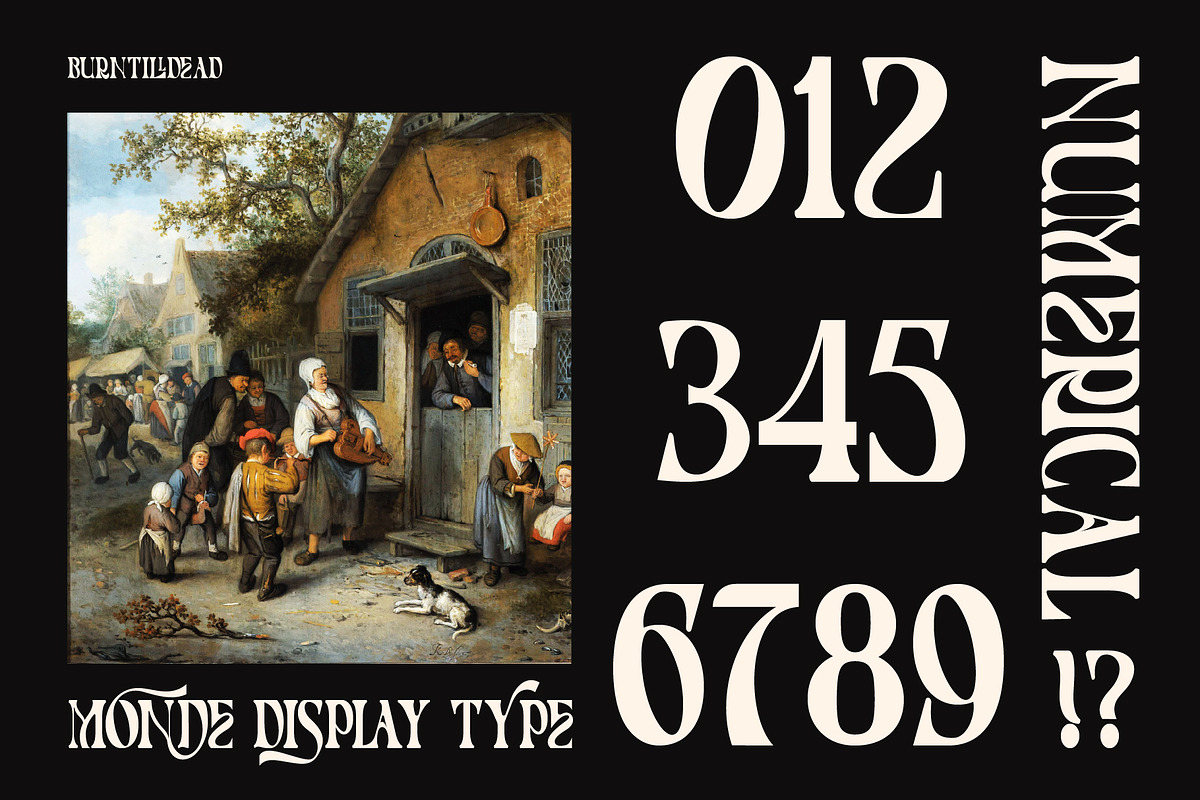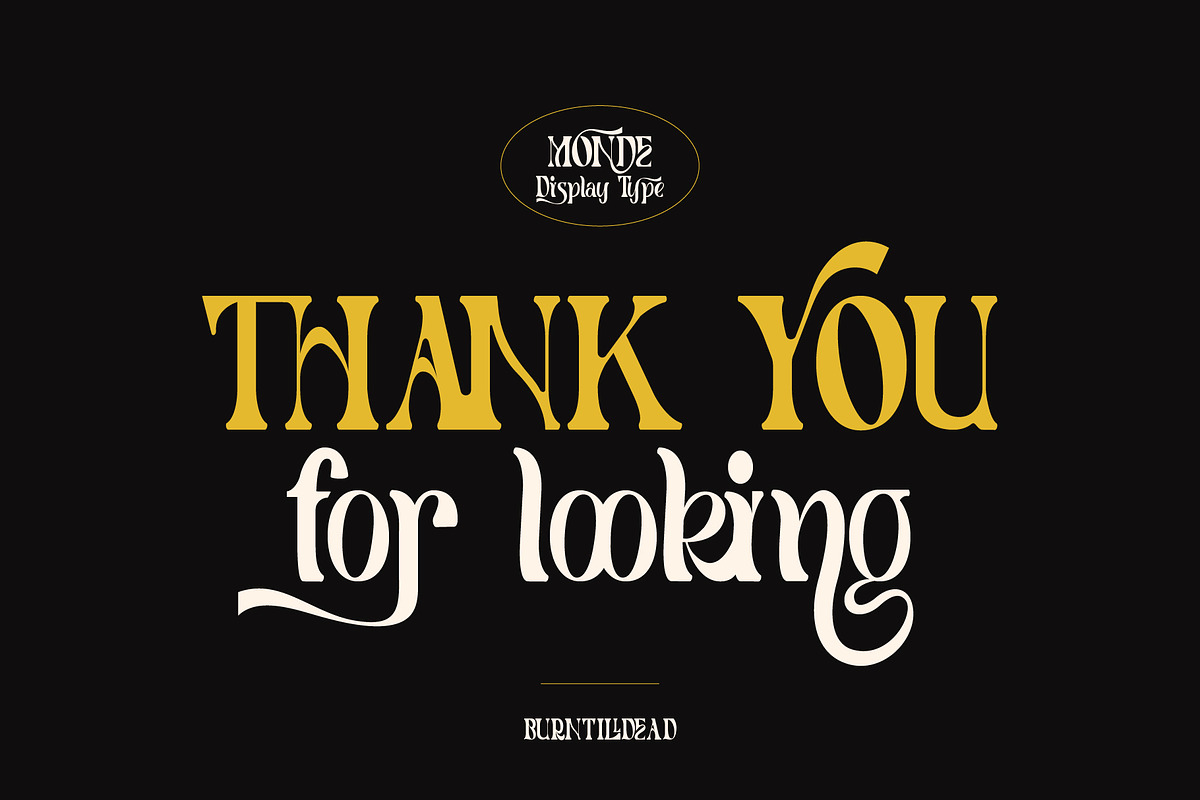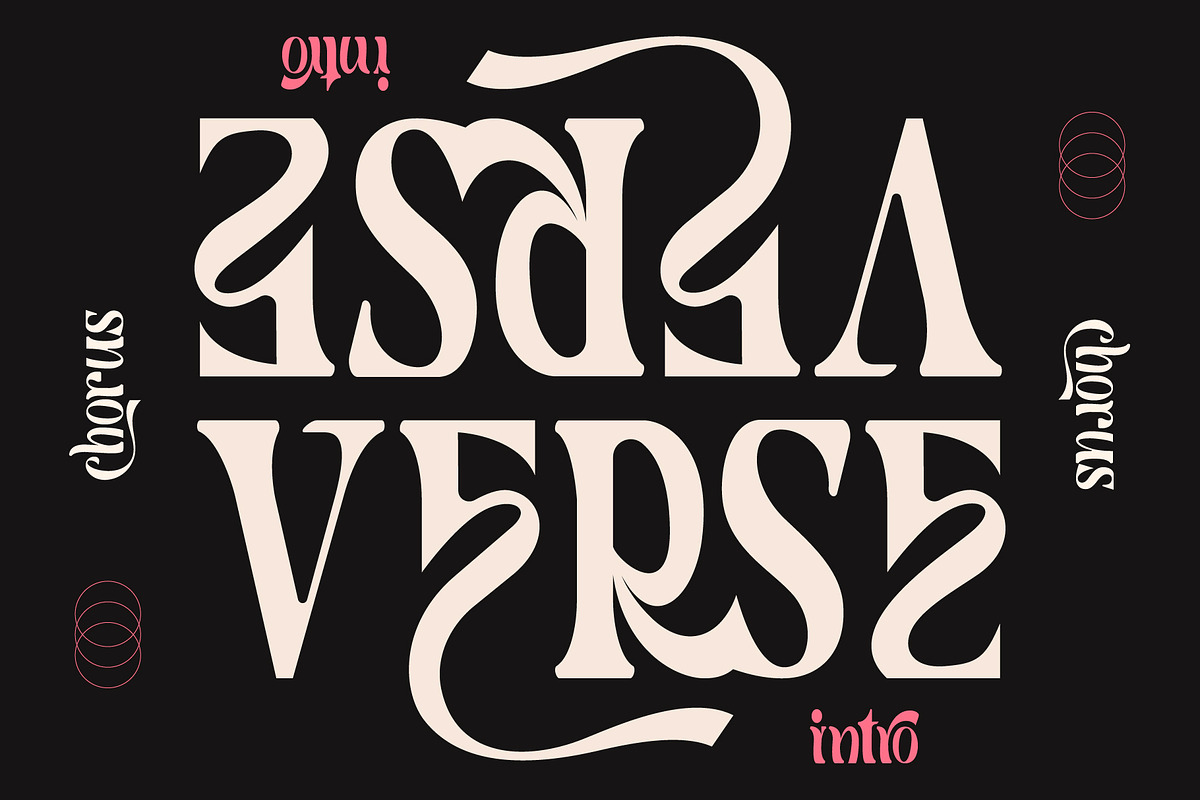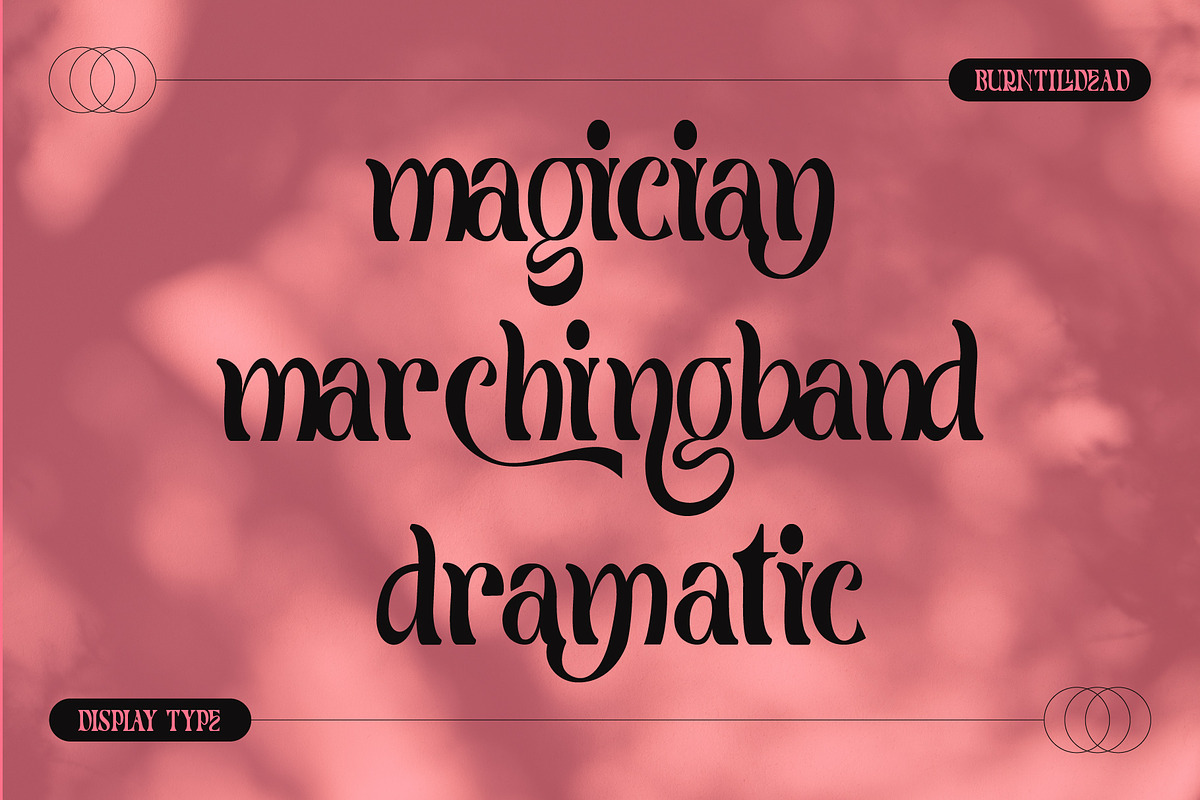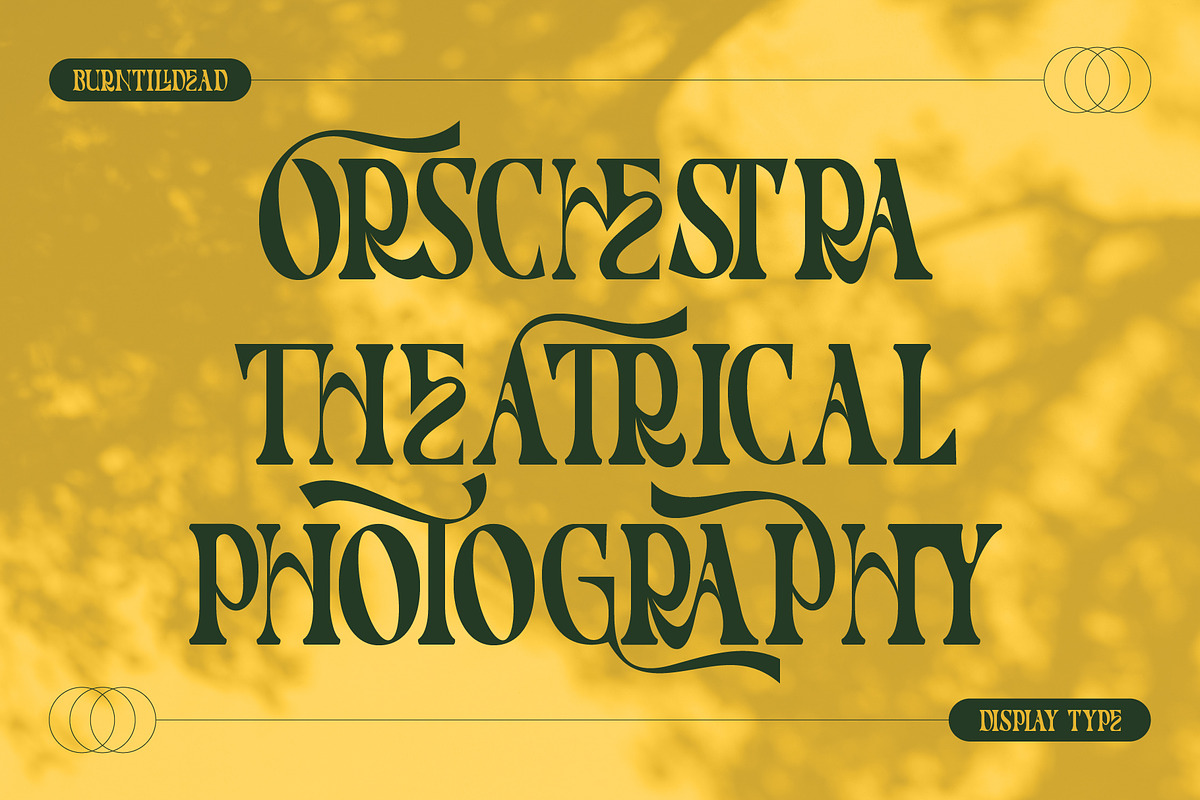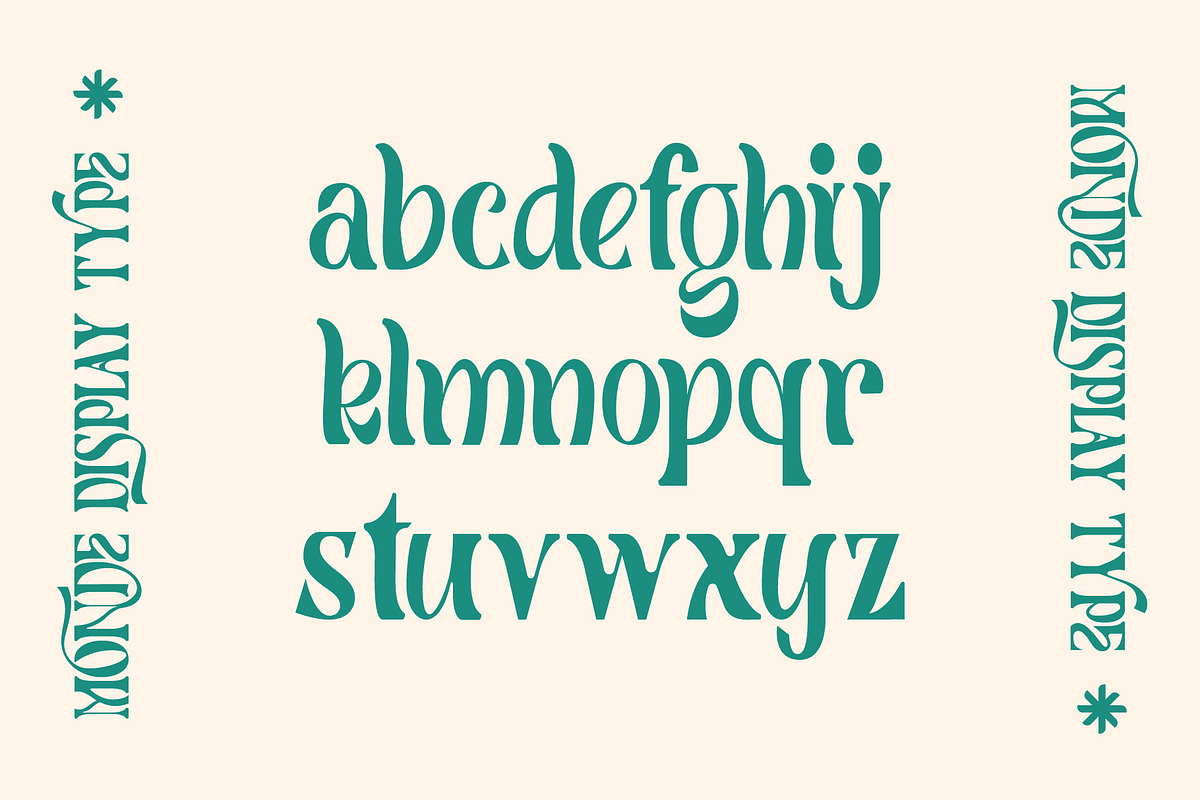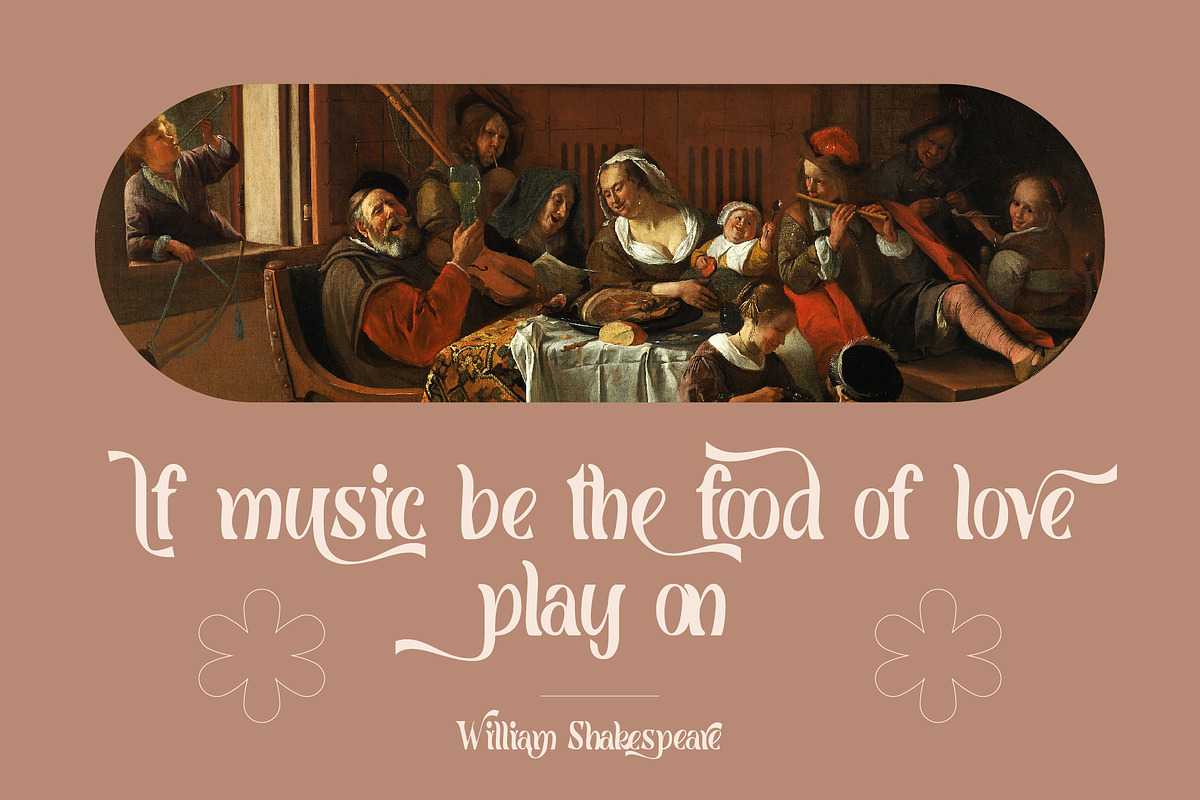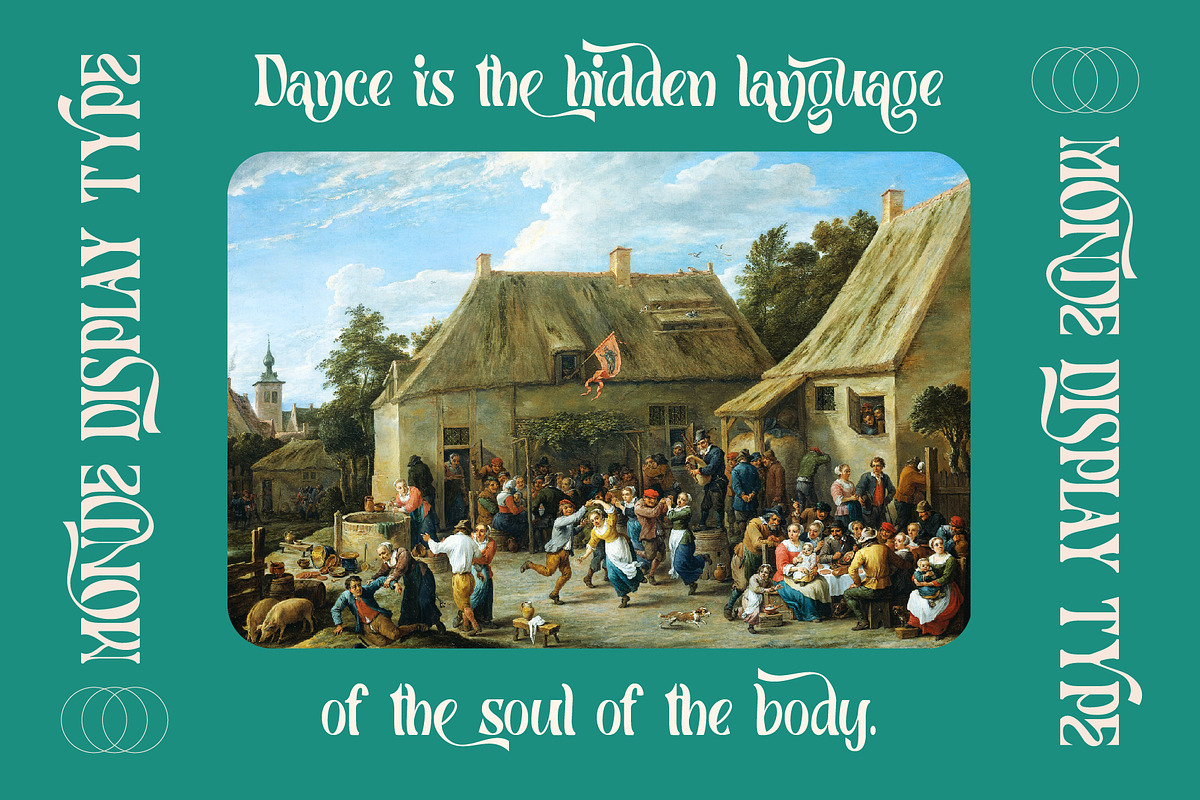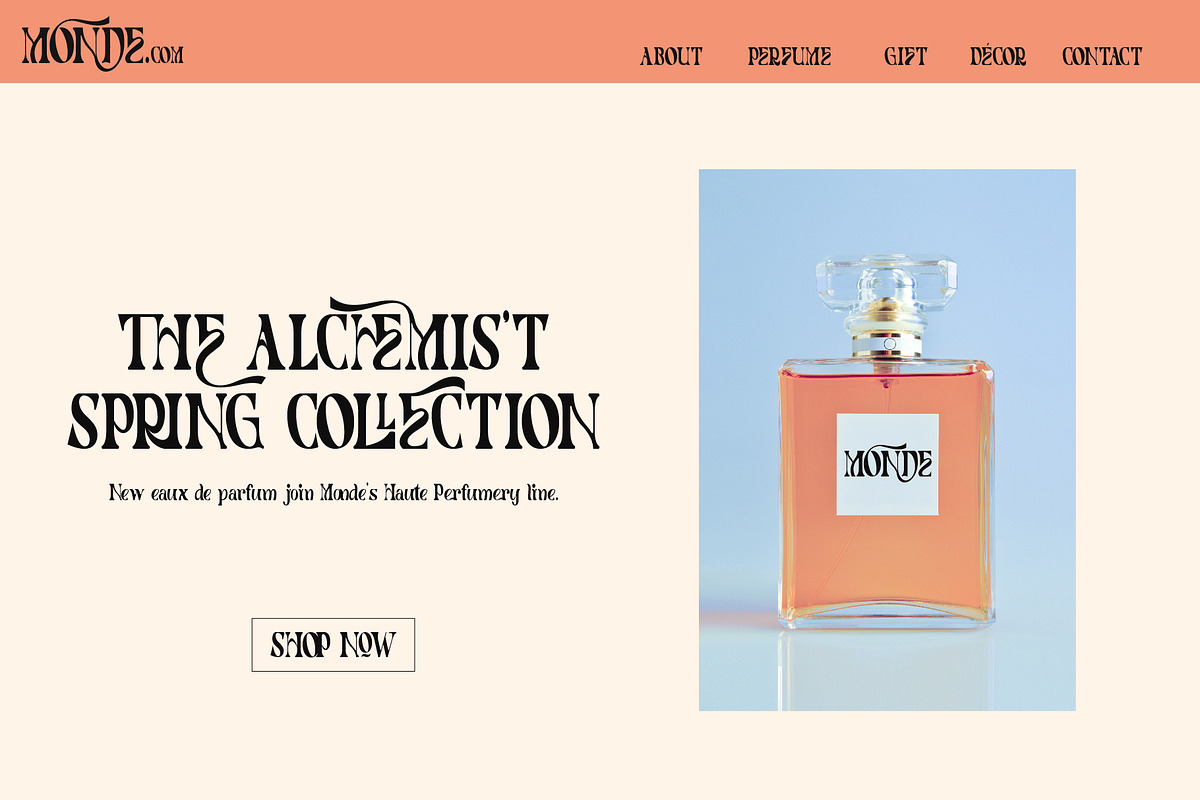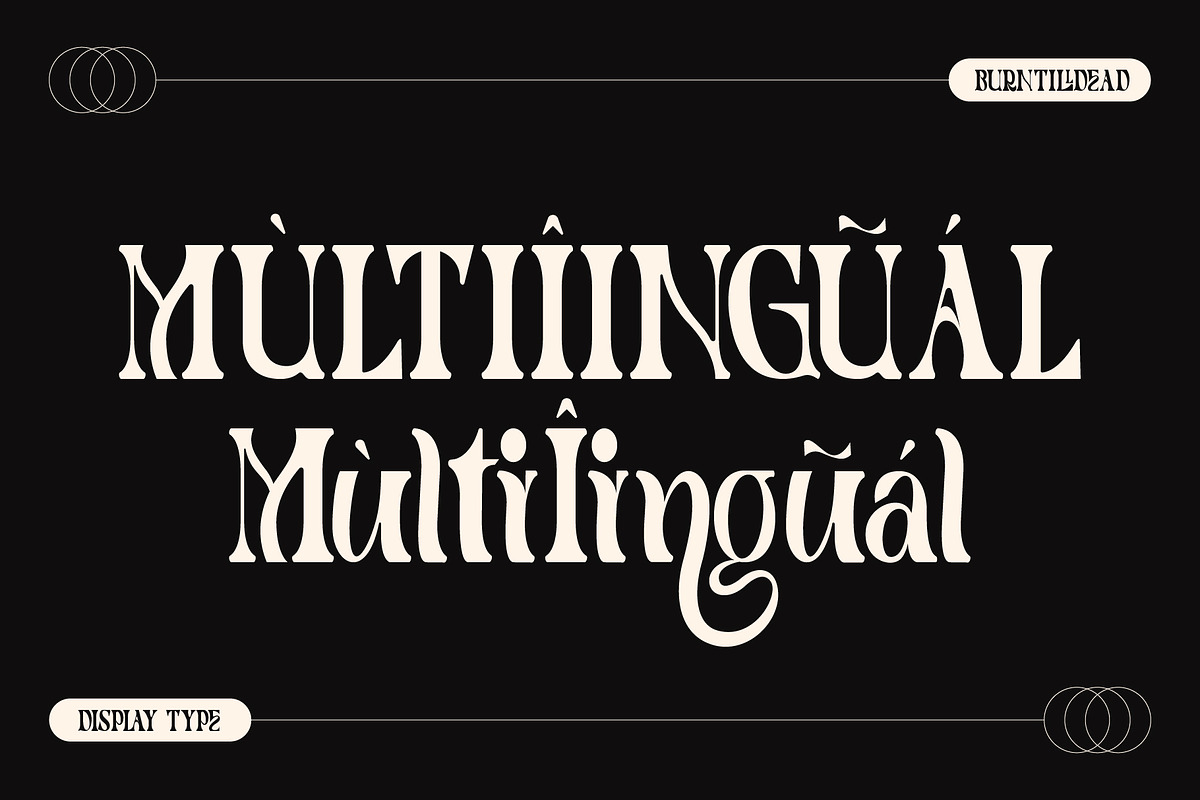
Monde - 100 Ligatures
Introducing “Monde” display typeface. Powered with +100 ligatures to bring fluent combination & +70 alternate characters to get dynamic & more aesthetic looks.
Perfect and suitable for branding, headline, logotype, sticker, editorial design, and etc.
Multi languages included: Afrikaans, Albanian, Asu, Basque, Bemba, Bena, Cebuano, Chiga, Cornish, Corsican, Danish, Embu, English, Estonian, Filipino, Finnish, French, Friulian, Galician, German, Gusii, Ido, Indonesian, Interlingua, Irish, Italian, Javanese, Jju, Kabuverdianu, Kalaallisut, Kalenjin, Kamba, Kikuyu, Kinyarwanda, Kurdish, Lojban, Low German, Luo, Luxembourgish, Luyia, Machame, Makhuwa-Meetto, Makonde, Malagasy, Malay, Manx, Meru, Morisyen, North Ndebele, Northern Sotho, Norwegian Bokmål, Norwegian Nynorsk, Nyanja, Nyankole, Occitan, Oromo, Portuguese, Romansh, Rombo, Rundi, Rwa, Samburu, Sango, Sangu, Sardinian, Scottish Gaelic, Sena, Shambala, Shona, Slovenian, Soga, Somali, South Ndebele, Southern Sotho, Spanish, Swahili, Swati, Swedish, Swiss German, Taita, Taroko, Teso, Tsonga, Tswana, Turkmen, Vunjo, Walloon, Walser, Xhosa, Zulu